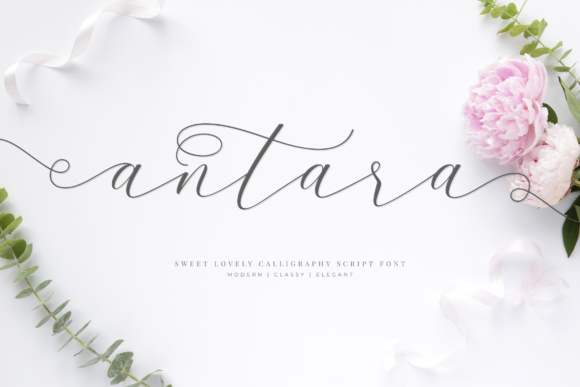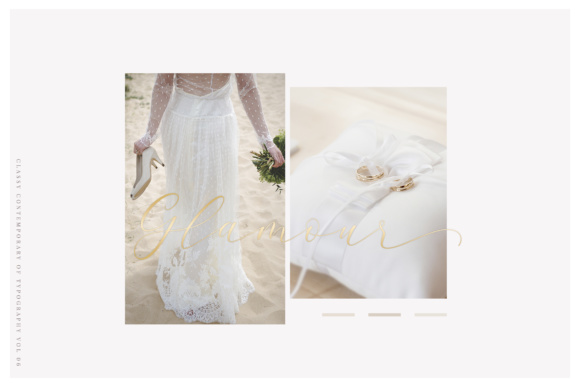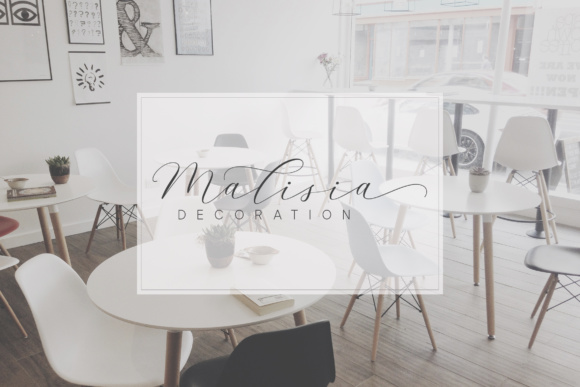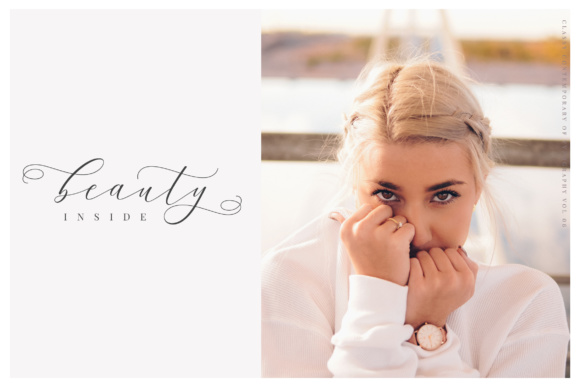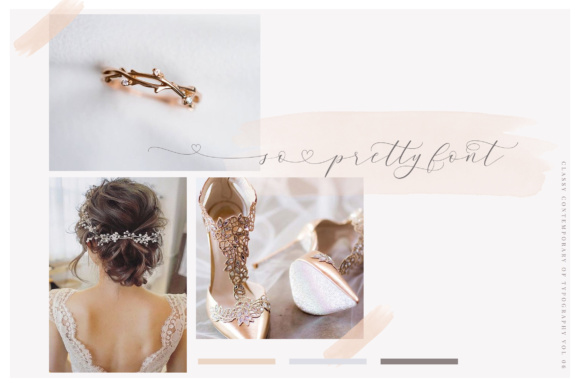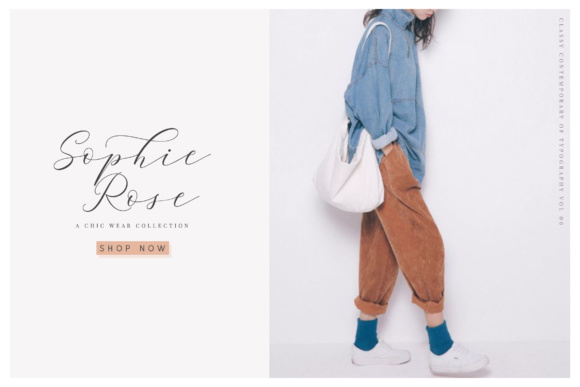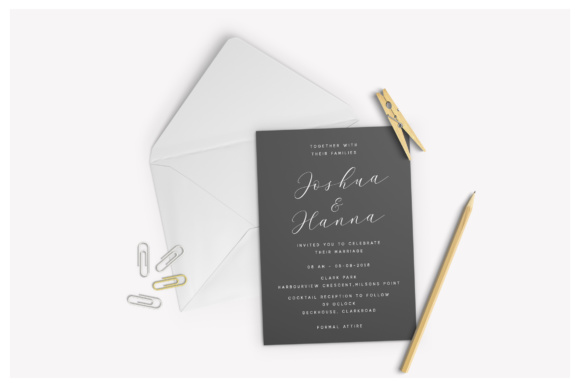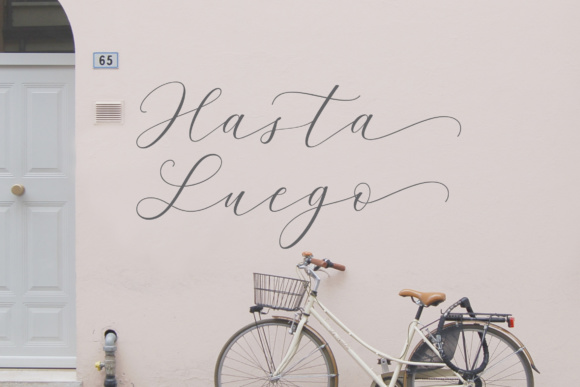
Antara Script Font
Antara is a classy handwriting font with a distinctive curve. It has lots of beautiful swashes, beautiful ligatures and will give your design a elegant, feminine feel.